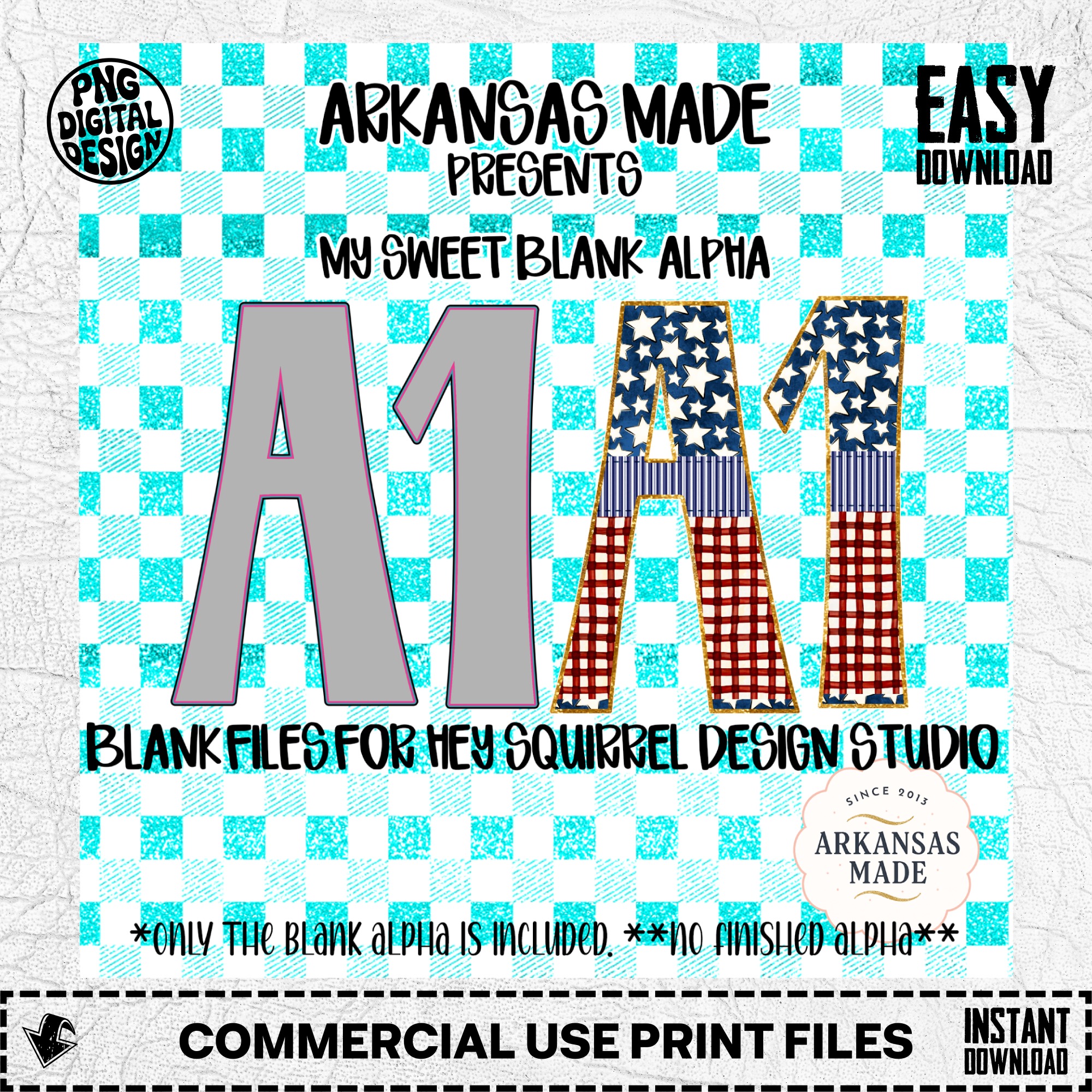
Blank Alpha PNG Set, Sublimation Letters Numbers, Customizable Digital Download, DIY Crafting Font Kit, Transparent Background Alphabet Pack
Unlock endless creativity with this Blank Alpha PNG Set, perfect for sublimation, custom designs, and all your DIY projects. This instant digital download provides versatile, transparent letter and number files, ready for your imagination. Featuring clean, customizable outlines, this kit is ideal for crafters, small business owners, and anyone seeking to personalize gifts, apparel, or unique home decor. Easily create stunning monograms, custom T-shirt designs, or unique printables for any special occasion.